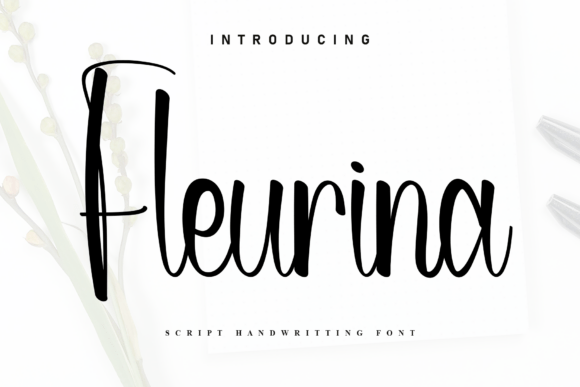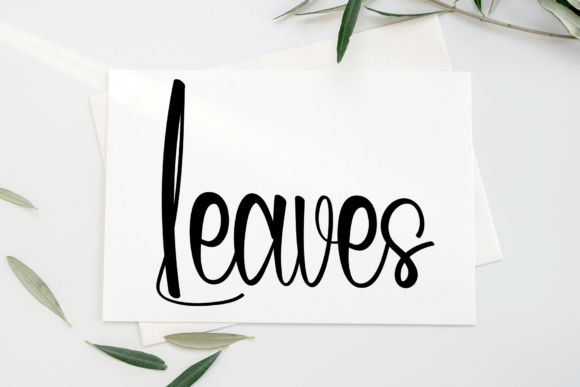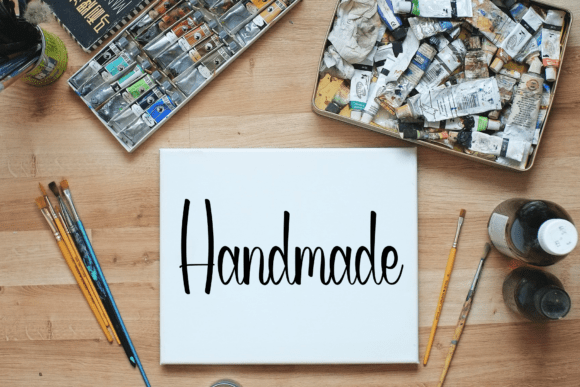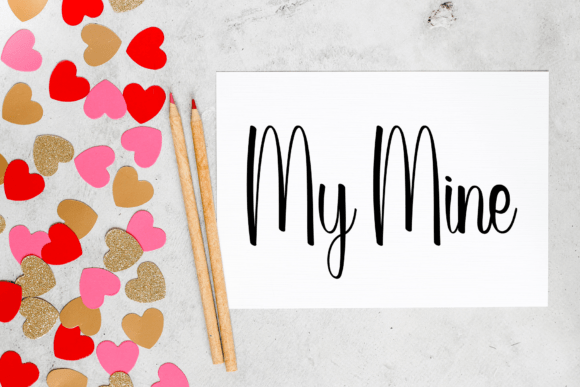
Fleurina Script Fonts
Capture the essence of genuine human connection with Fleurina, a script that balances artisanal warmth with a polished aesthetic. Defined by its fluid movement and rhythmic, hand-drawn character, this typeface breathes a gentle, unhurried life into every composition. It is an essential asset for creators seeking to infuse soul into modern visual identities, intimate wedding suites, or curated lifestyle content.